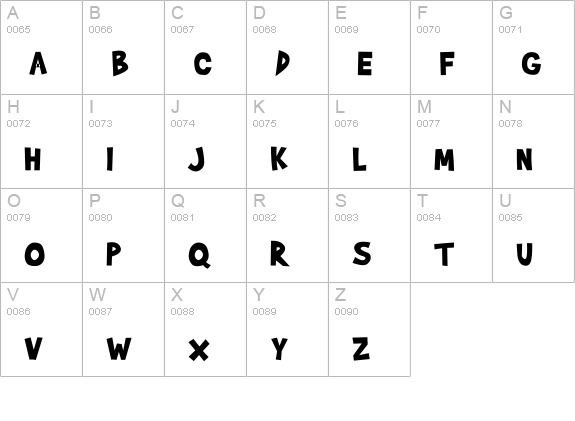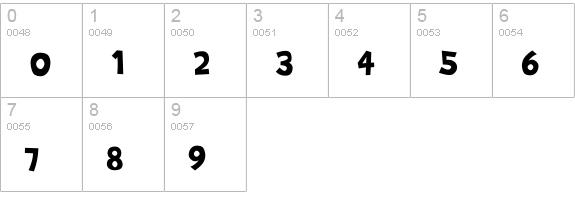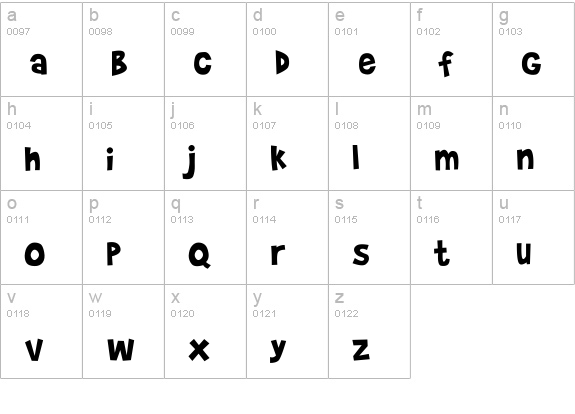
Brady Bunch Font Details
The Brady Bunch font is a fun and playful typeface inspired by the iconic 1970s TV show. Its retro charm and quirky style make it perfect for adding a touch of nostalgia to your designs. With its bold and rounded letters, the Brady Bunch font is sure to stand out and capture attention. Best of all, this delightful font is available for free download at FontsMarket.com. So go ahead and give your projects a groovy twist with the Brady Bunch font today!